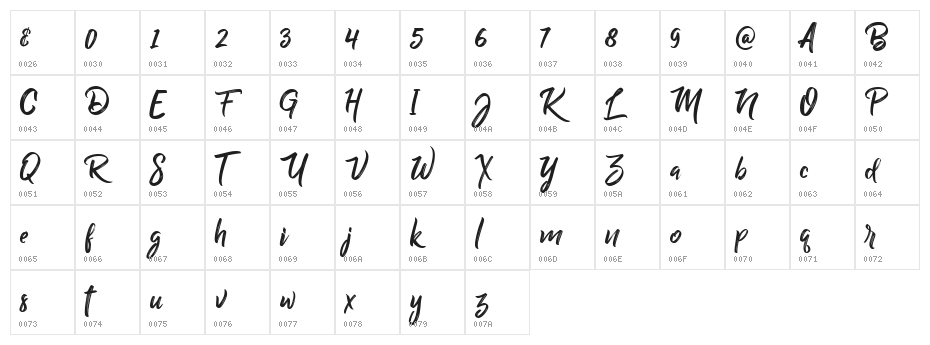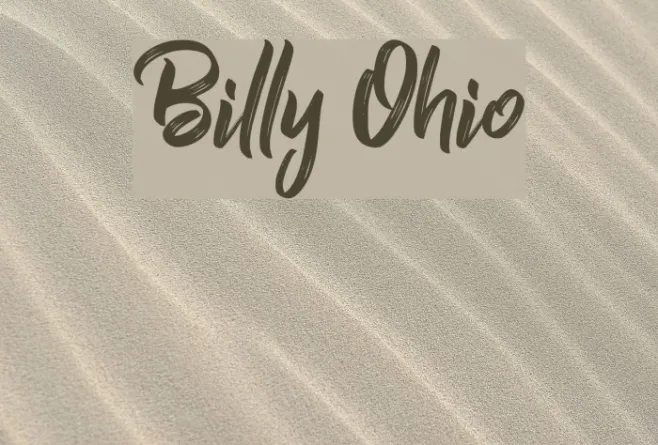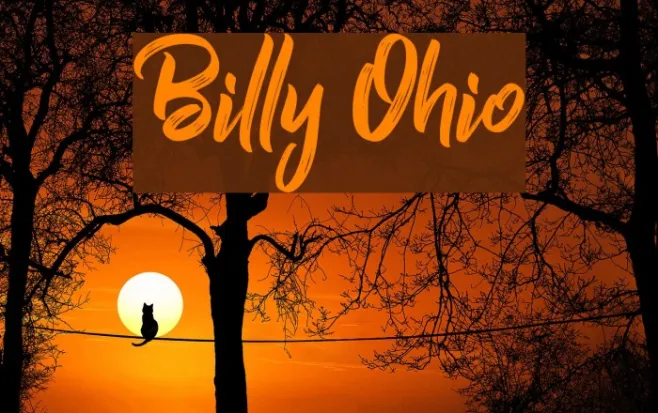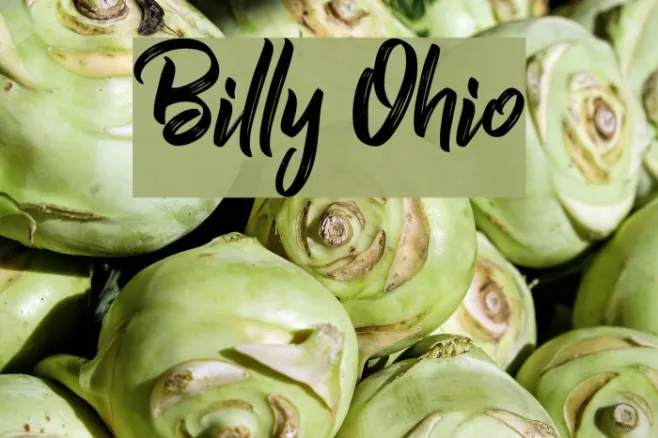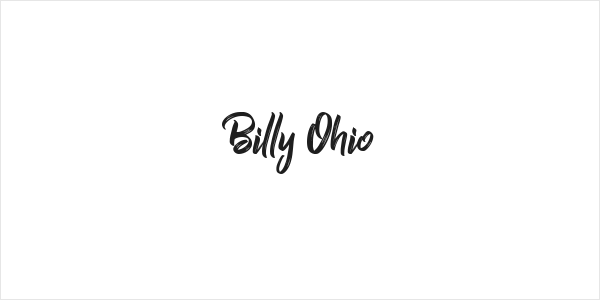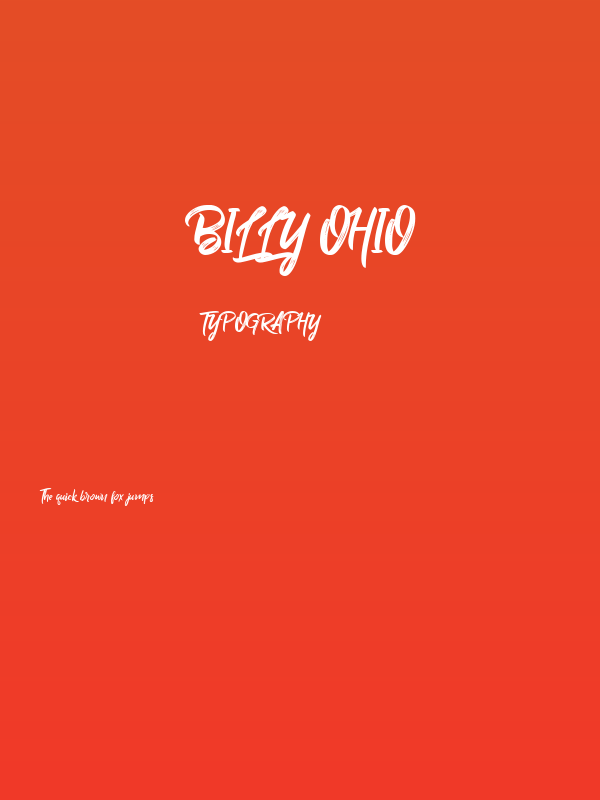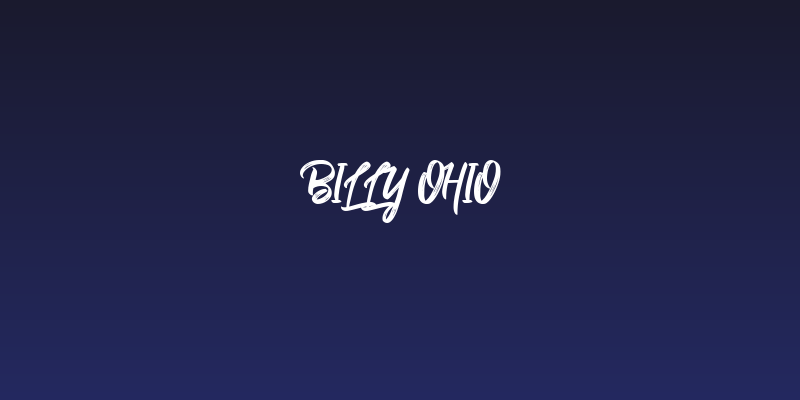
Billy Ohio Font
Billy Ohio Description
This font features a bold and expressive script style, characterized by its dynamic and flowing letterforms. The strokes are thick and exhibit a brush-like texture, giving it a hand-drawn appearance. The uppercase letters are particularly striking, with dramatic flourishes and a sense of movement. The lowercase letters maintain a consistent style, complementing the uppercase with their own unique flair. Numbers and special characters are designed to match the overall aesthetic, ensuring a cohesive look across all text. This font's energetic and artistic style makes it ideal for creative projects.
| Proposed Projects | Ideal for branding, logo design, posters, and invitations where a creative and artistic touch is desired. |